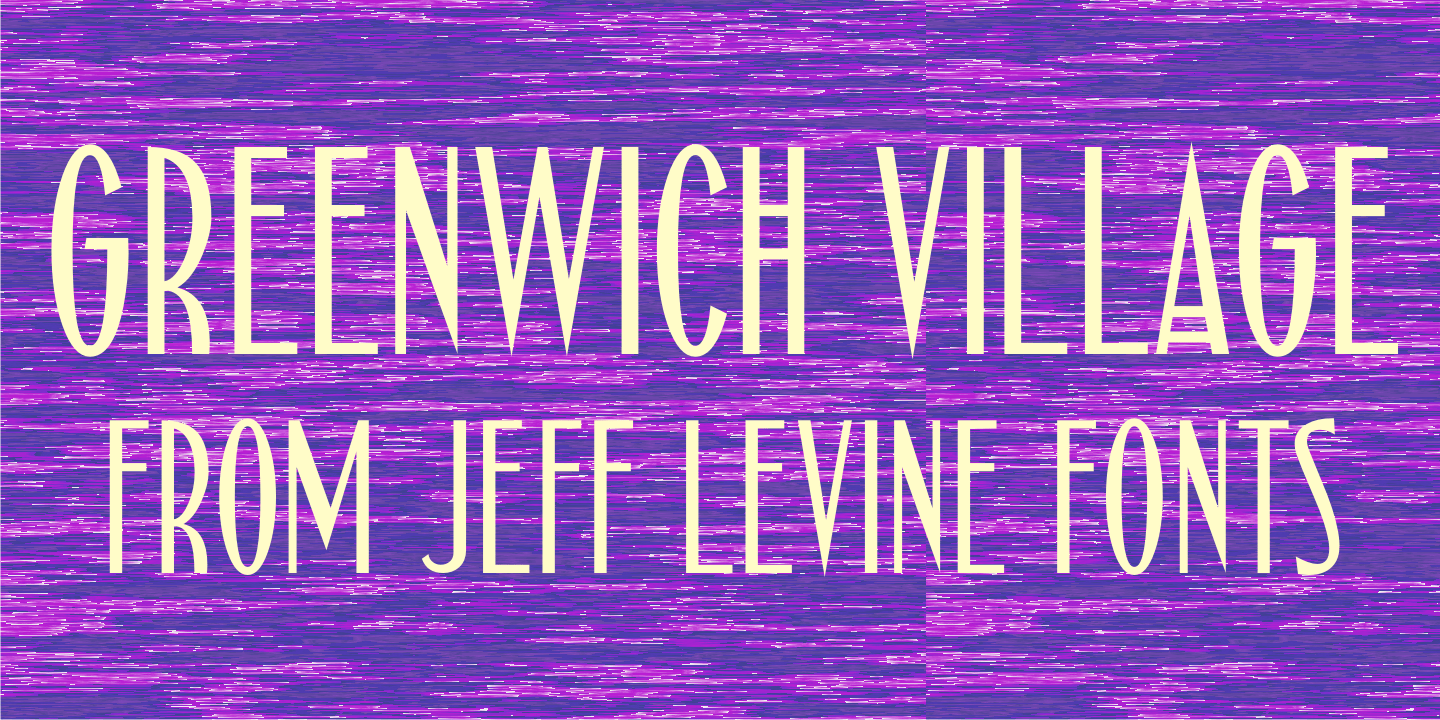
Greenwich Village
For decades, the Greenwich Village area of New York was a home for artists, poets, writers and free-thinkers of their time who were labeled 'Bohemians” because of their non-conformist approach to life and the arts.
Greenwich Village JNL is an Art Nouveau-influenced typeface with a Bohemian approach in its double crossbars on the A and H; all the while being a nice example of hand lettering found on a vintage piece of sheet music.